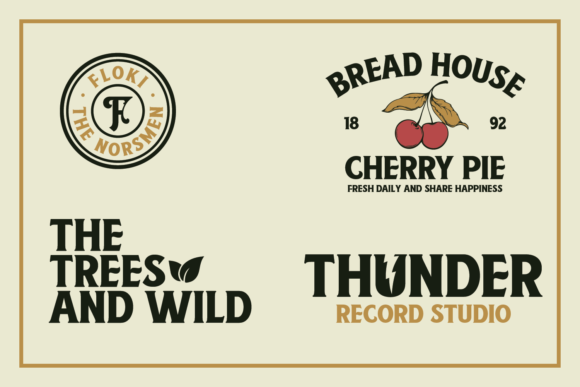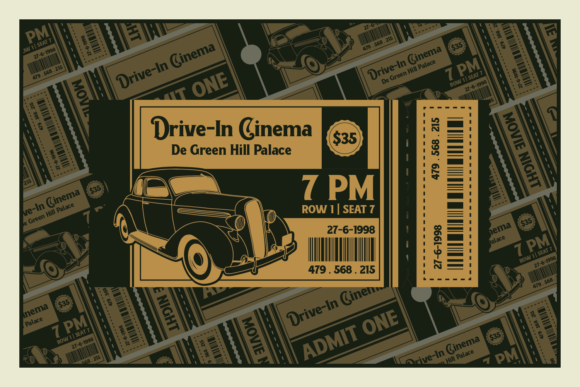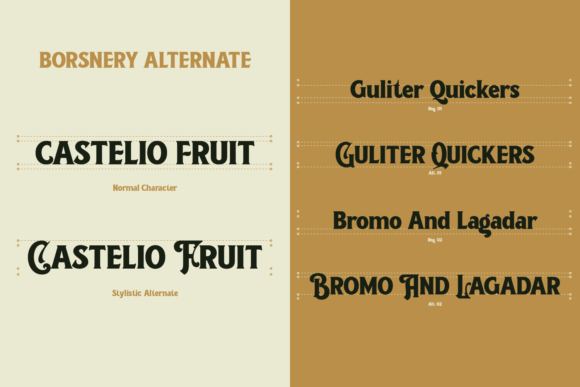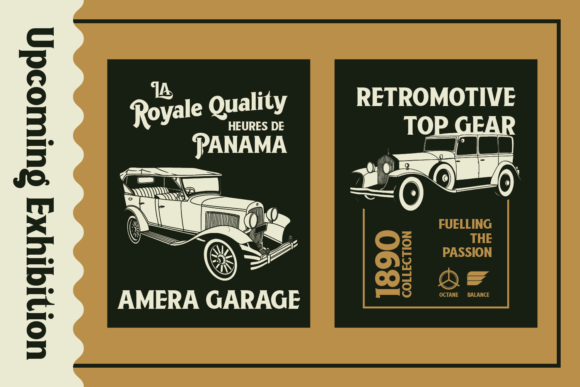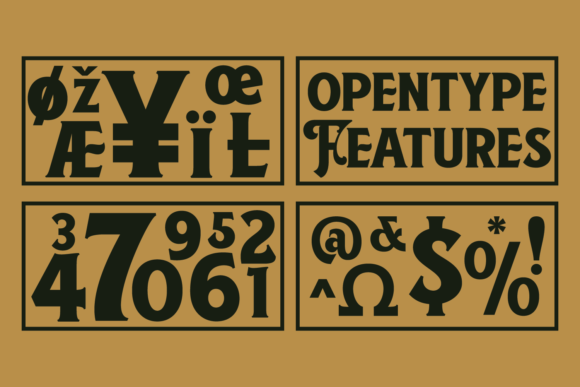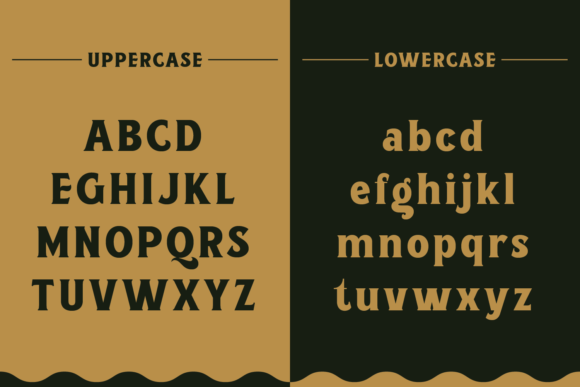
The Quest for the Perfect Font: Discovering Borsnery
I’ll never forget the time I was working on a project for a client who wanted a vintage-style poster with a modern twist. I had spent hours browsing through font libraries, but nothing seemed quite right. That was until I stumbled upon Borsnery, a serif font that has since become a staple in my design toolkit. In this article, I’ll share my experience with Borsnery, its features, and how to make the most of it in your designs.
An Honest Review of Borsnery
Borsnery is a modern vintage-style serif font that has won me over with its unique charm. Here’s what I love about it:
• ✨ Unique character: Borsnery has a distinct personality that sets it apart from other serif fonts.
• ✅ Highly legible: Despite its vintage style, Borsnery remains clear and readable, even at smaller font sizes.
• ✅ Versatile: This font is suitable for a wide range of design applications, from posters and signage to branding and packaging.
Of course, no font is perfect, and Borsnery has a few quirks:
• 🤔 Limited language support: Borsnery currently supports a limited number of languages, so it’s essential to check compatibility before using it for multilingual projects.
• ⚠️ Some glyphs may require manual adjustment: While Borsnery’s glyphs are generally well-designed, some may require manual adjustment to fit perfectly in your design.
Borsnery was designed with the goal of creating a unique, modern vintage-style serif font that would stand out in a crowded design landscape. Inspired by classic typography and modern design trends, Borsnery’s creator aimed to craft a font that’s both elegant and approachable. While the exact story behind Borsnery’s creation is unclear, its design reflects a deep understanding of typography and a passion for creating something new and exciting.
What is Borsnery’s style? Borsnery is a modern vintage-style serif font, perfect for designs that require a touch of elegance and sophistication.
Is Borsnery suitable for body text? Yes, Borsnery is highly legible and can be used for body text, but it’s particularly effective in headlines, titles, and captions.
Does Borsnery support OpenType features? Yes, Borsnery supports OpenType features, including stylistic alternates, ligatures, and glyphs, which can add visual interest and depth to your design.